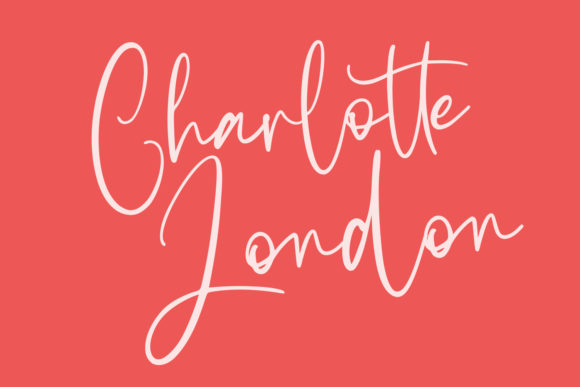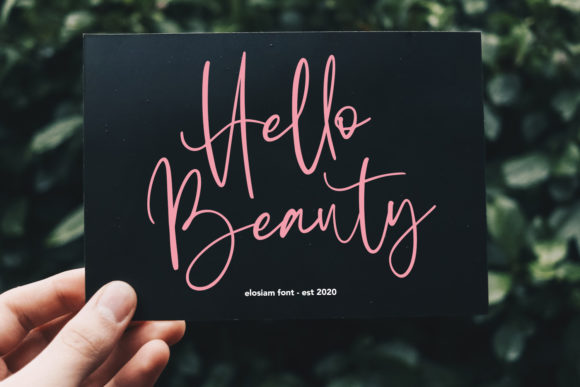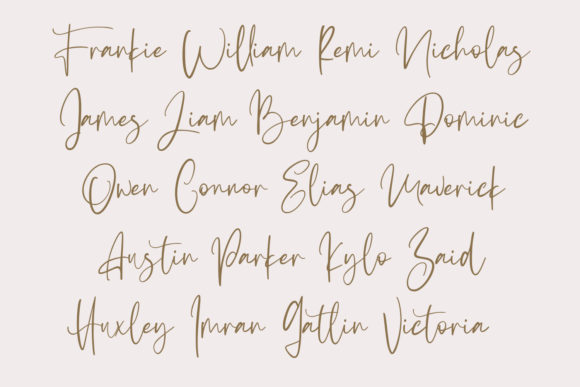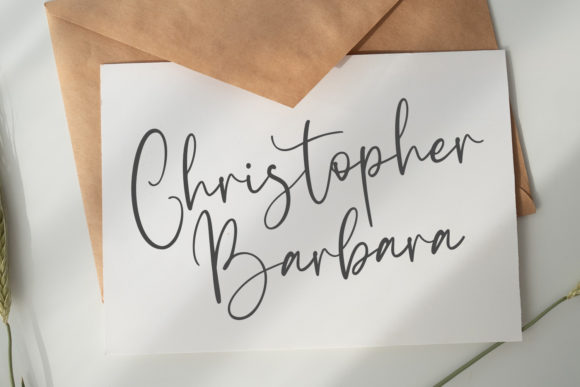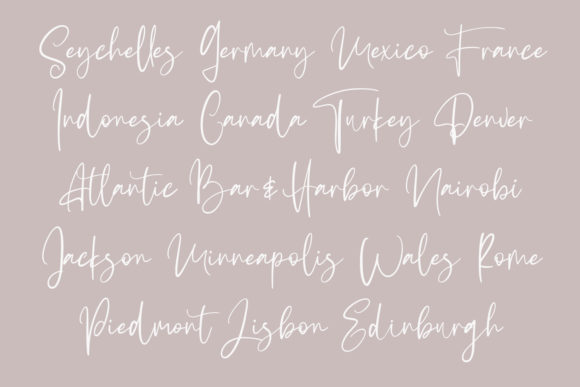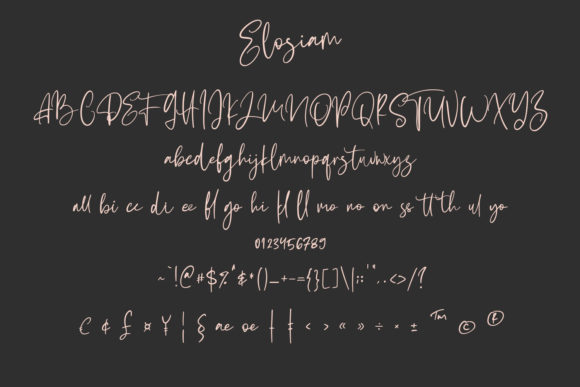
Elosiam Font
About Elosiam Font
Elosiam is a relaxed and romantic handwritten font. Fall in love with its authentic feel and use it to create gorgeous wedding invitations, beautiful stationary art, eye-catching social media posts, and cute greeting cards.